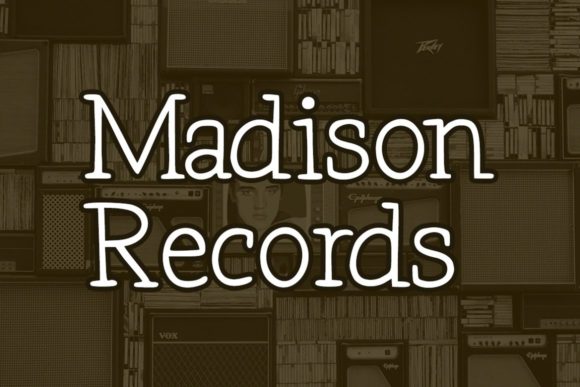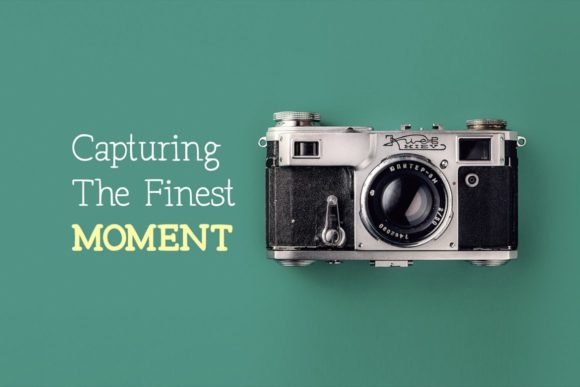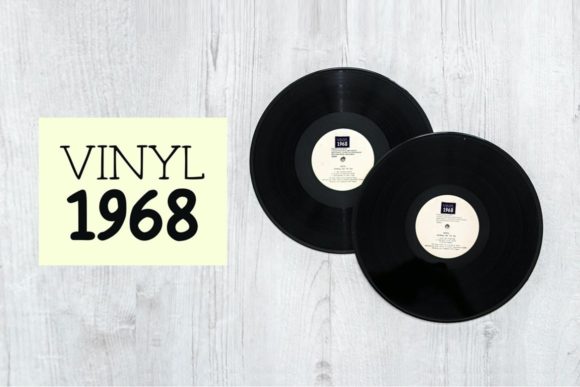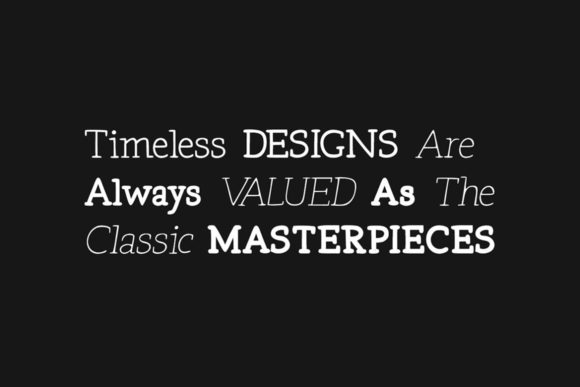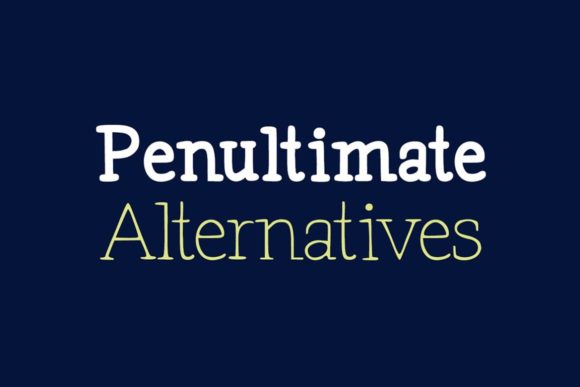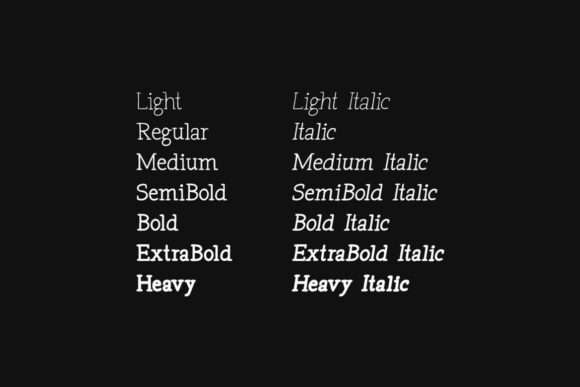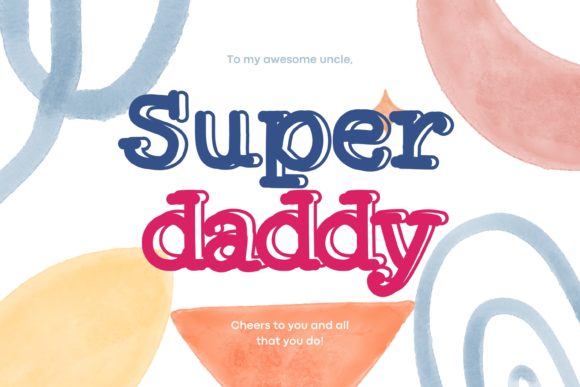
Tex Writer Font
TEX WRITER FONT SPECIMEN
Tex Writer is a sweet and friendly slab serif font. Its natural and unique style makes it incredibly fitting to a large pool of designs. The only limit is your imagination!